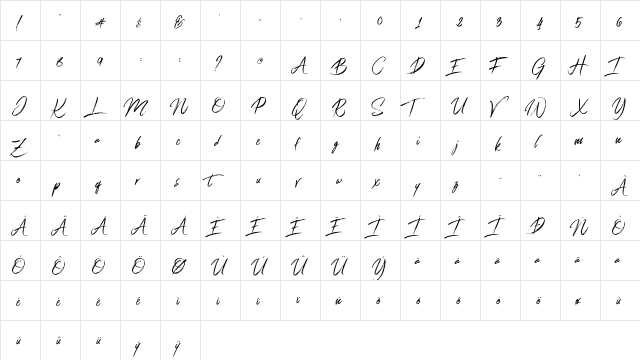
Connoisseurs Regular
Design Context for Connoisseurs Typeface
Connoisseurs is a composed and adaptable typeface that performs quietly and consistently across a wide range of design contexts.